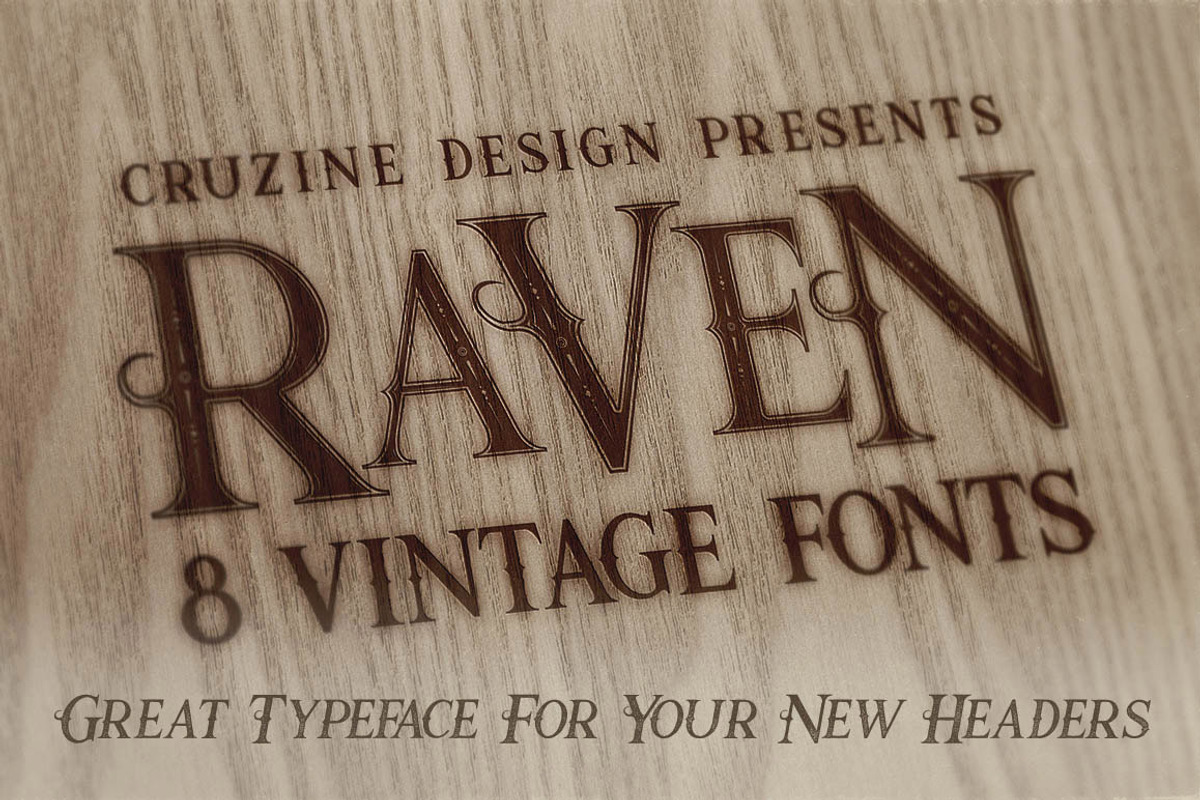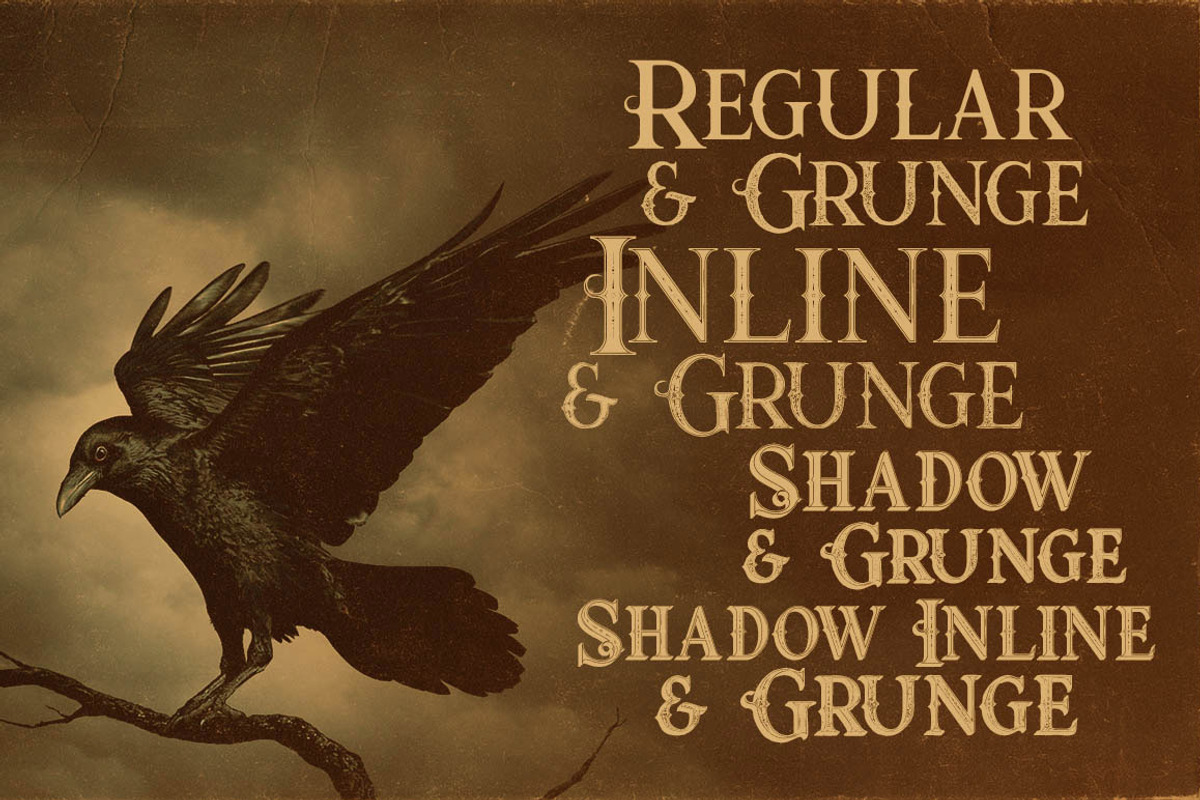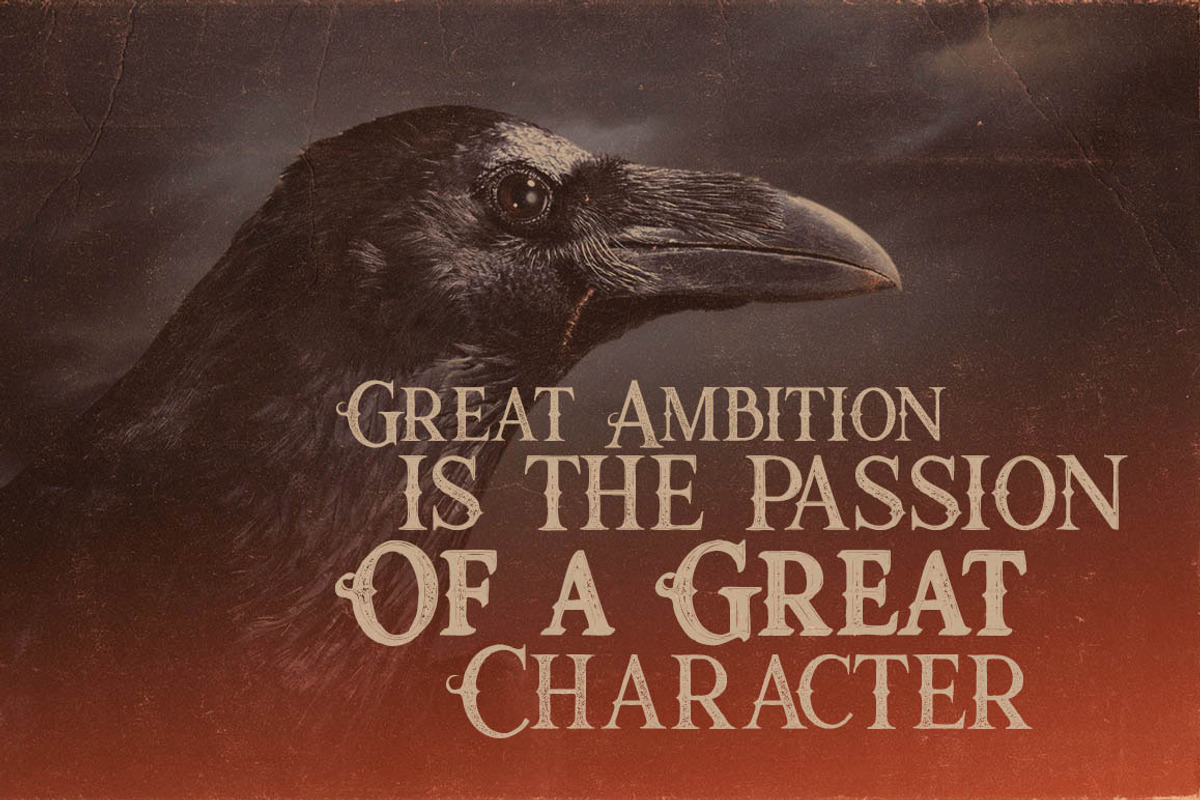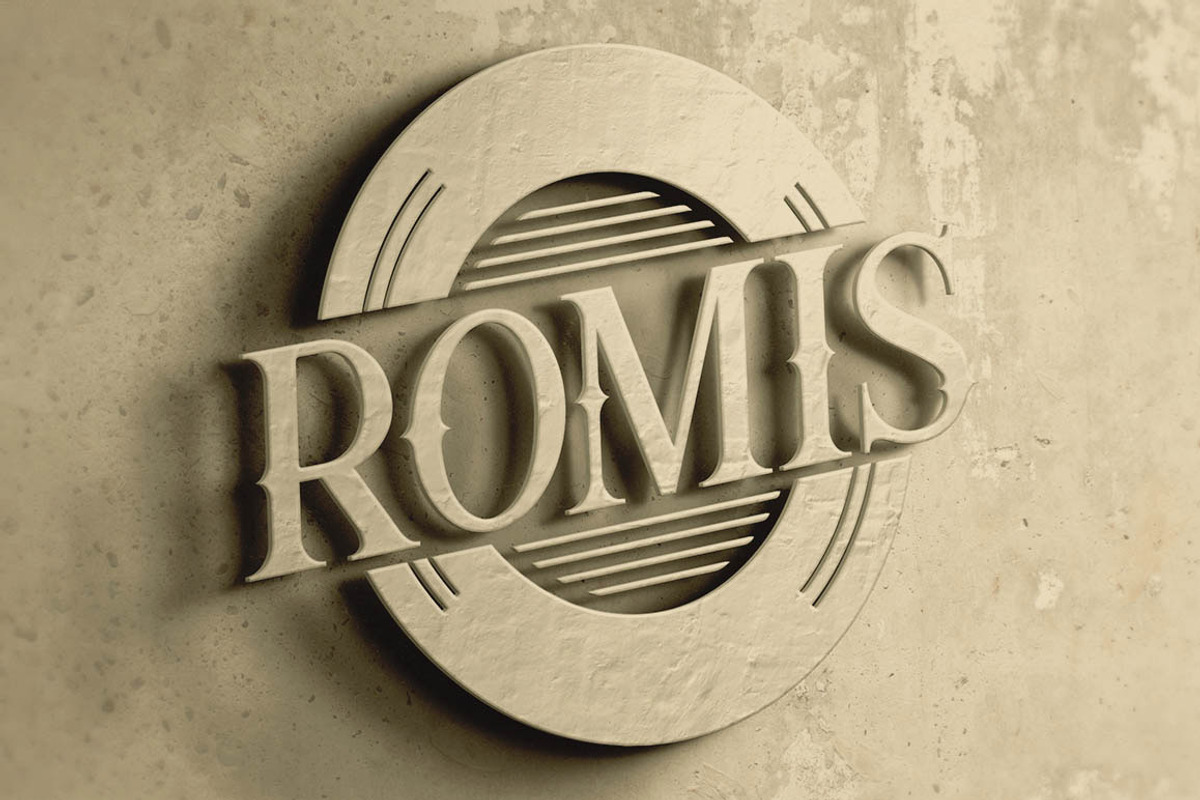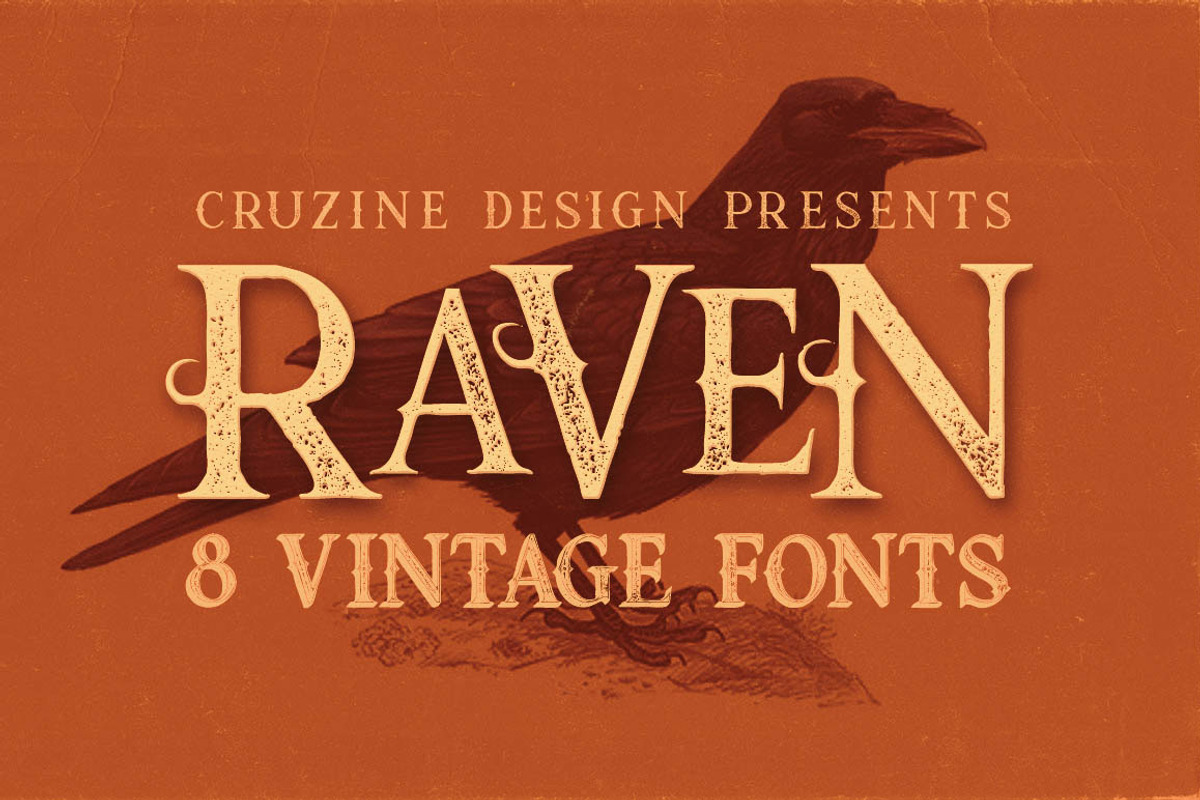
Raven Typeface
Raven Typeface by Cruzine is a font selected for branding, posters, packaging, typography.
Why Raven Typeface is worth a look
Raven Typeface by Cruzine fits naturally into Branding, posters, packaging, typography.